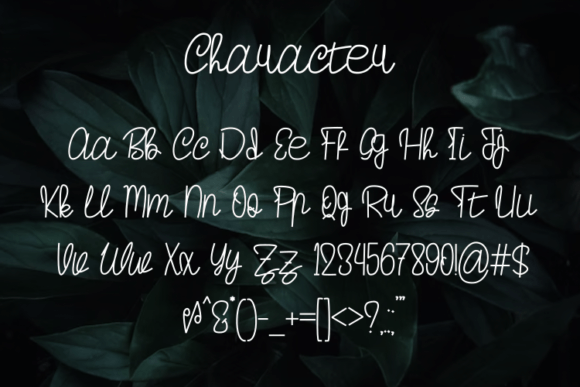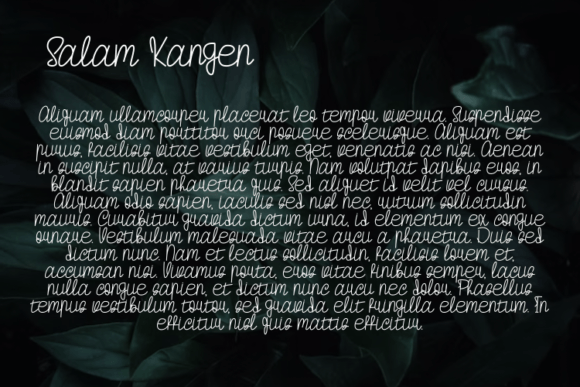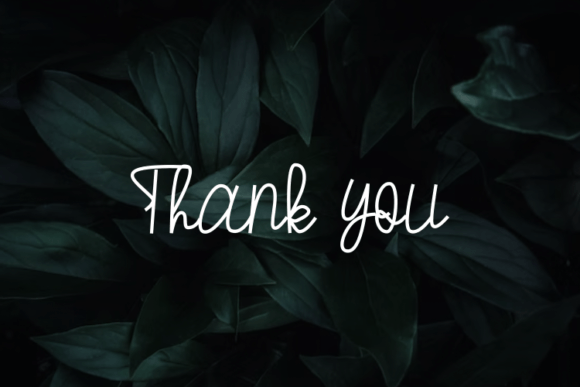
Introduction to Salam Kangen Font Font
Fonts play a crucial role in design, and the Salam Kangen Font font is a typeface that brings both character and versatility to any project. Whether you’re working on a branding project, a website, or a print design, the Salam Kangen Font font offers a unique style that can elevate your work.
Salam Kangen is a handwritten font that has a simple style and modern look.
This typeface is perfect for elegant and luxurious logos, book or movie title design, fashion brands, magazines, clothing, fonts, quotes, and more Add it to your fonts library, and use it to create spectacular designs.
Key Features of Salam Kangen Font Font
Why Choose Salam Kangen Font Font?
The Salam Kangen Font font is more than just a typeface – it’s a design tool that helps you communicate your message with style and clarity. Its unique character set and versatile design make it suitable for a wide range of applications, from elegant invitations to bold headlines.
With its carefully crafted letterforms and balanced proportions, the Salam Kangen Font font ensures readability and visual appeal across all mediums.
What makes Salam Kangen Font font special?
The Salam Kangen Font font stands out with its unique design, exceptional readability, and versatility across various design applications.